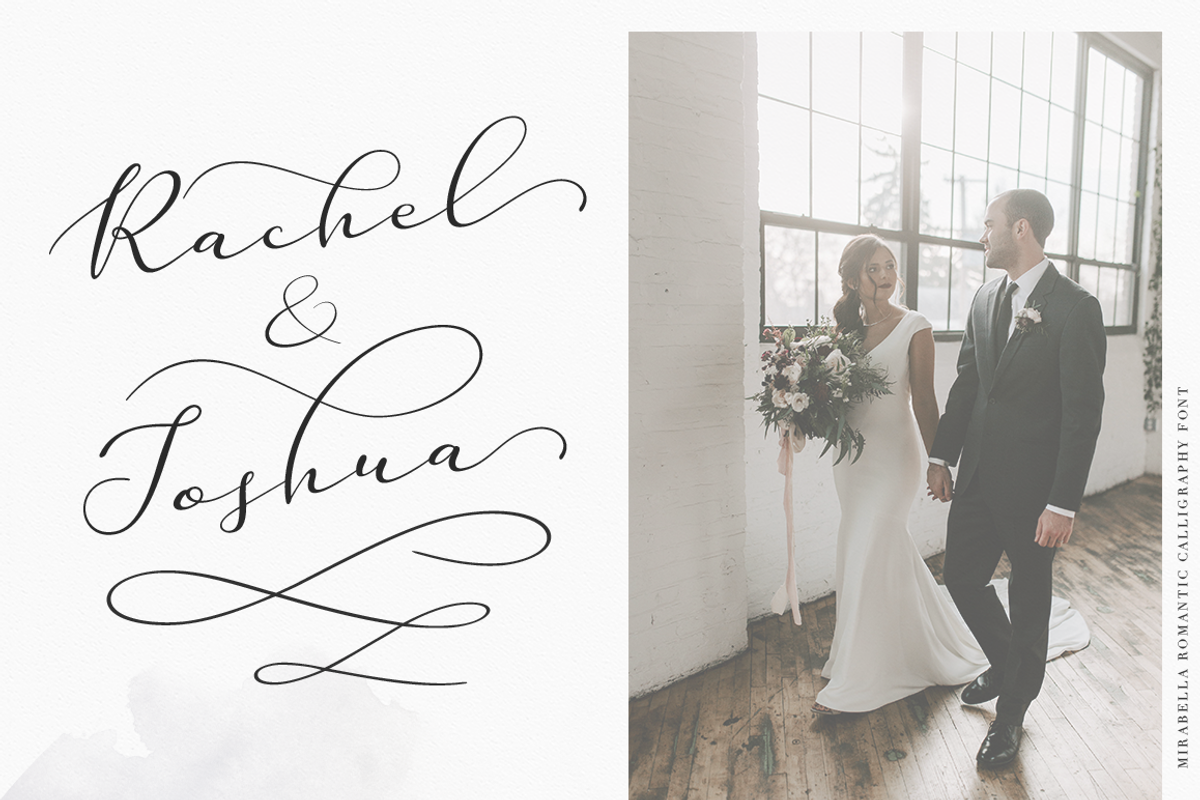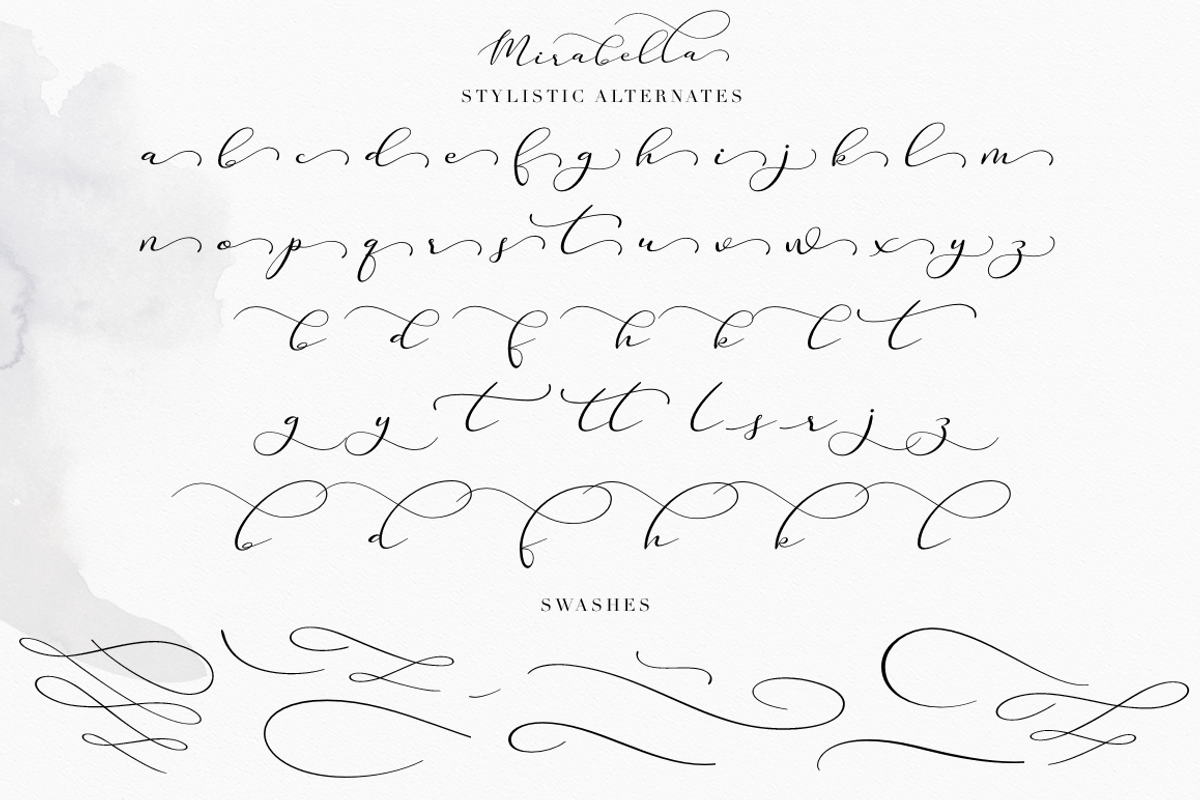
Mirabella
Mirabella script- a new romantic calligraphy font.
This font is ideal for branding and decorate your any project, are perfect for wedding invitation or your blog. Also with their help, you can create a logo or beautiful frame for your home. Or just use for your small business, book covers, stationery, marketing, magazines and more. Special for you I prepared a lot alternates and swashes.